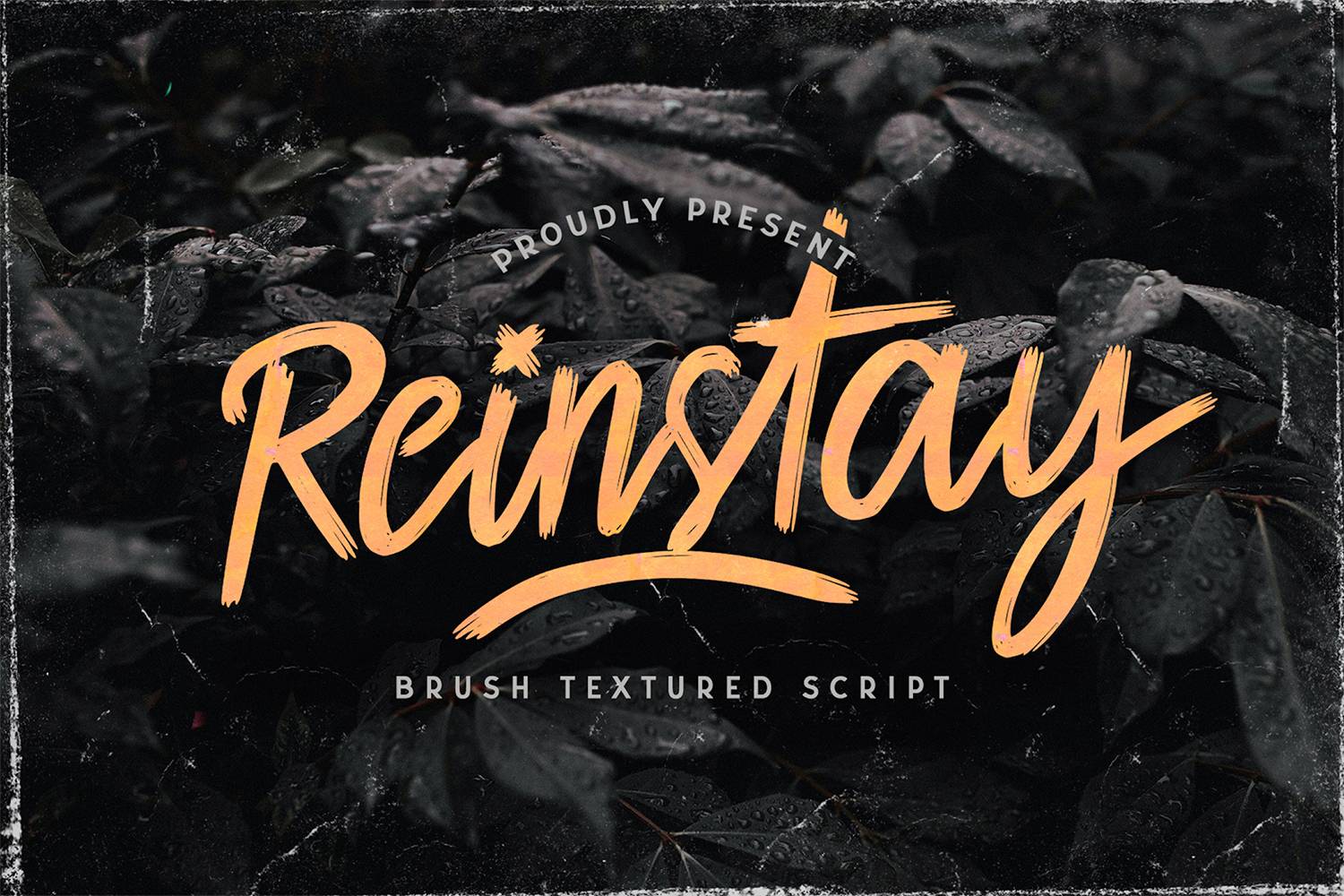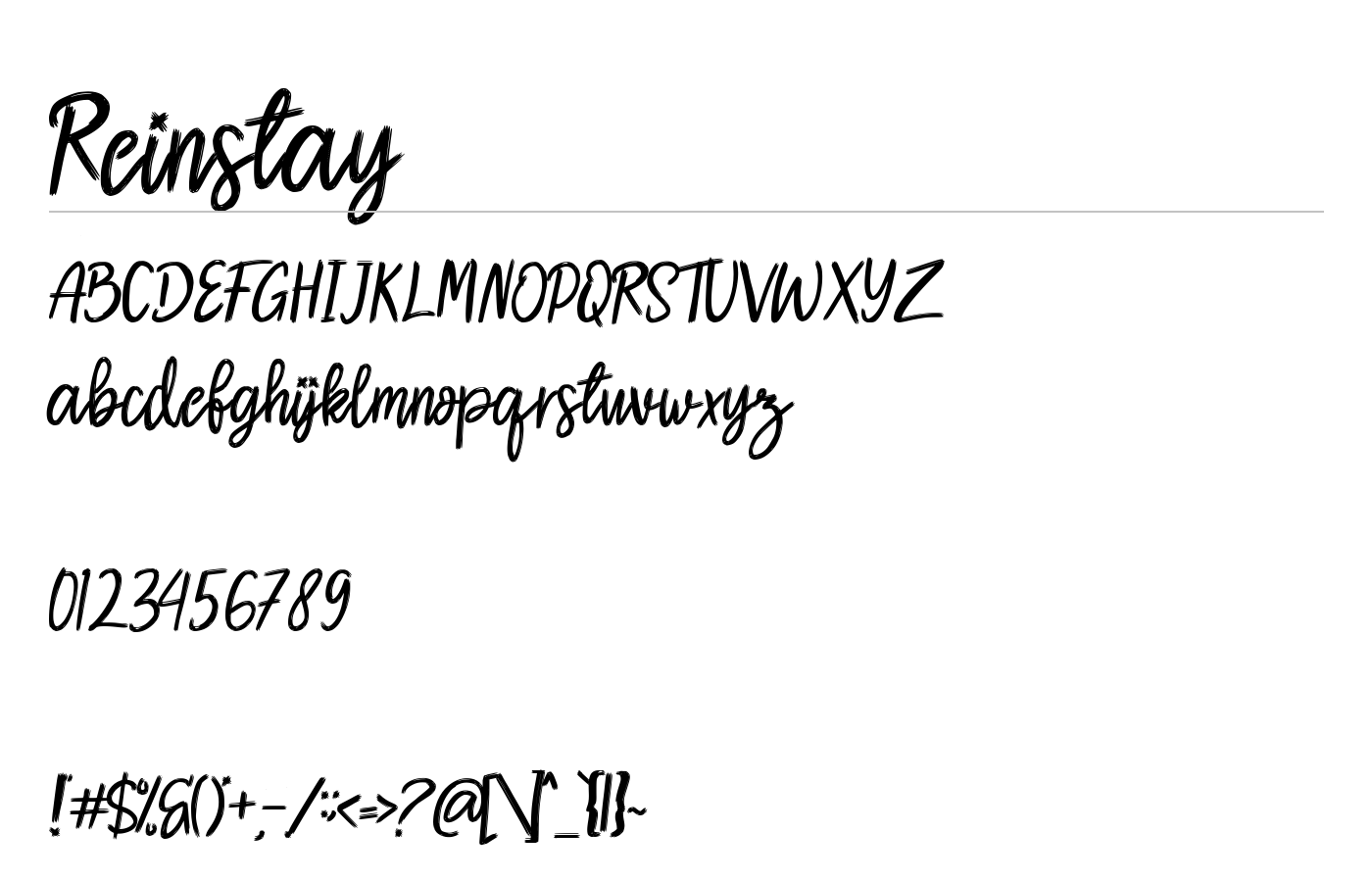
Reinstay is a lively, handwritten script font with a natural, brushstroke texture that gives it an energetic and casual feel. Its medium weight and slightly condensed letterforms, combined with a playful mix of flowing lowercase and upright uppercase characters, make it ideal for creative and expressive designs. This font works great for branding, invitations, and social media graphics where a personal, artistic touch is needed.